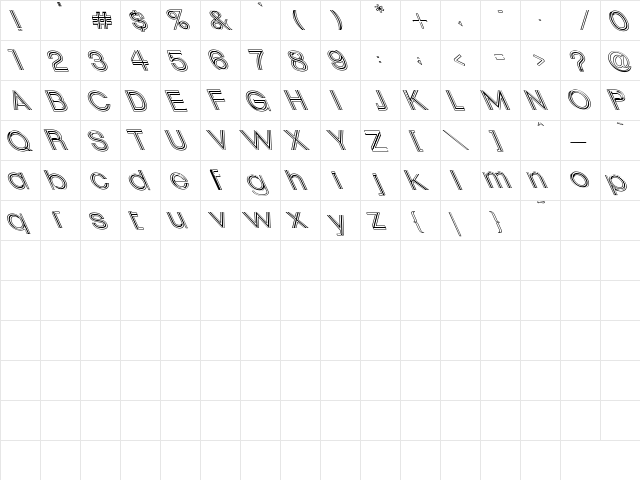
Uptight Hollow Extreme Lefti Regular
Design Context for Uptight Hollow Extreme Lefti Typeface
Uptight Hollow Extreme Lefti is a composed and adaptable typeface that performs quietly and consistently across a wide range of design contexts.